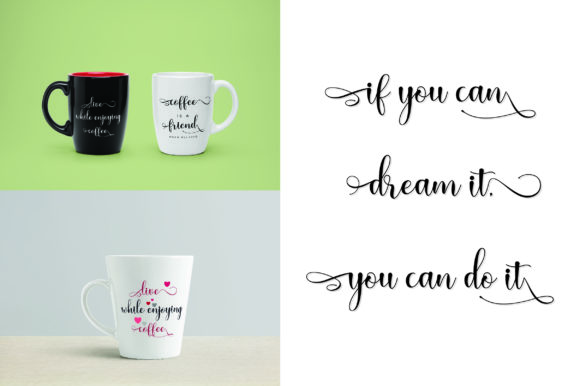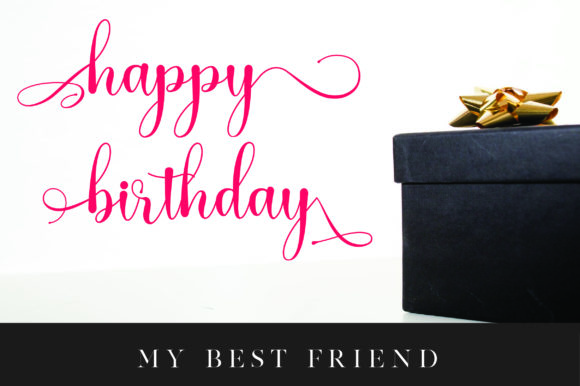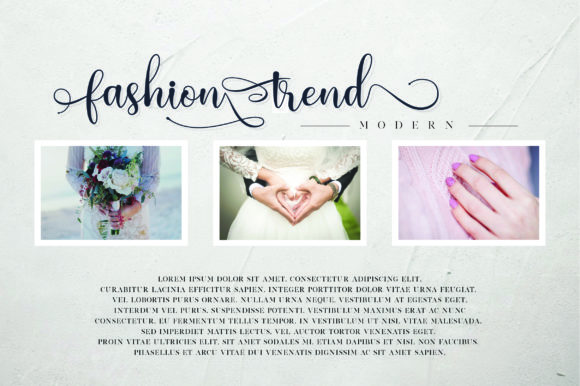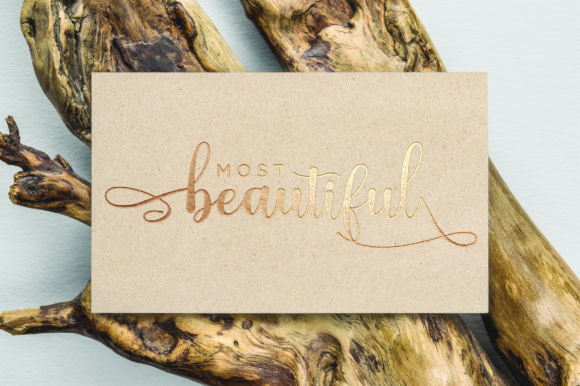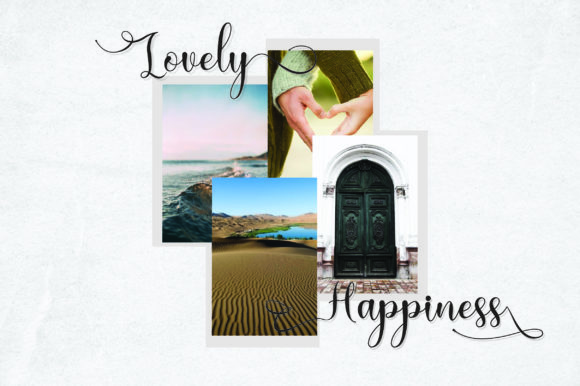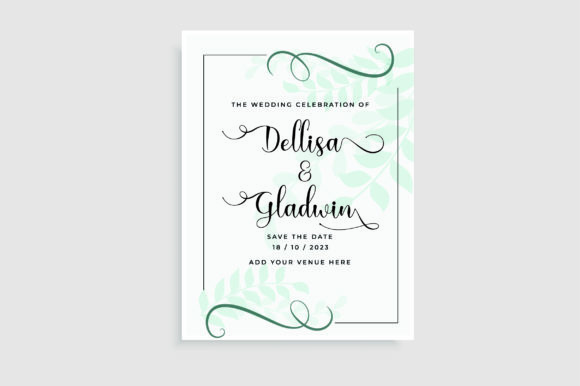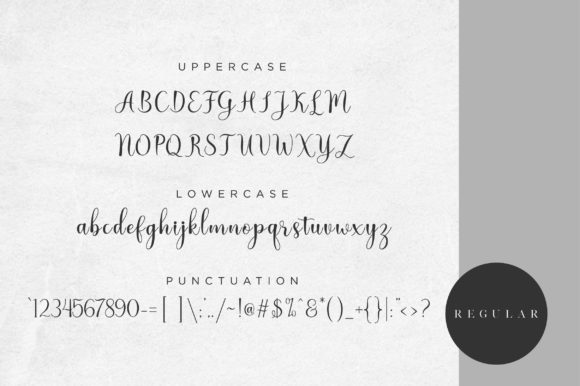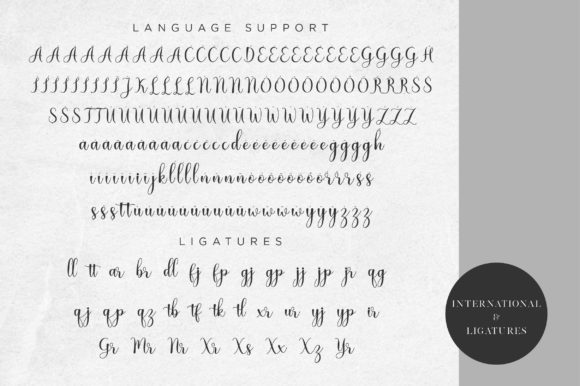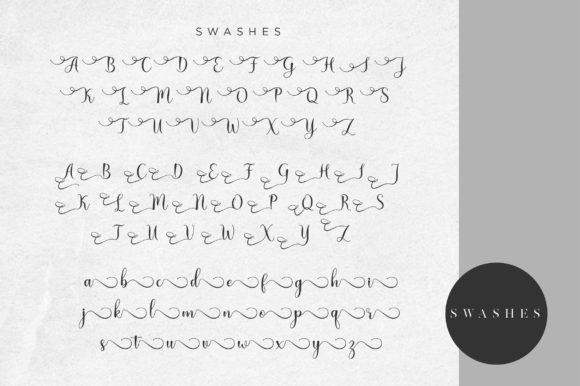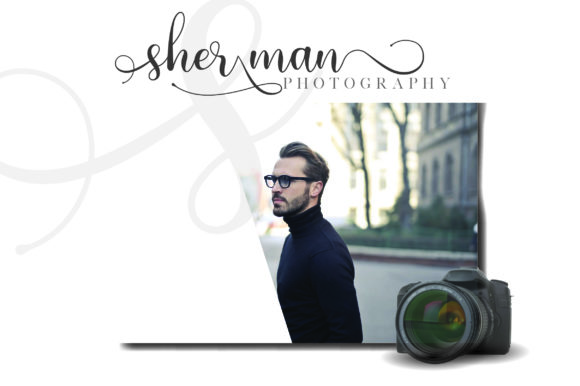
Nattalia Font
About Nattalia Font
Introducing The Nattalia, a stylish script font designed to add a touch of elegance and sophistication to your designs. This font is more than just a typeface; it’s a design asset crafted to bring a feminine and upscale quality, infusing your projects with a chic and stylish appearance.
The Nattalia’s stylish script embodies a feminine aesthetic, making it perfectly suited for designs that require a touch of grace and sophistication. Whether you’re working on logos, branding, invitations, or any project where an upscale and chic look is desired, The Nattalia delivers with its elegant script style.
The feminine style of The Nattalia lends a graceful and refined quality to your designs, establishing a visual identity that is both chic and memorable. Its versatility makes it suitable for a variety of applications, from branding and logos to invitations and editorial design.
In branding, The Nattalia establishes a chic and stylish visual identity that resonates with a feminine audience. For invitations and wedding-related designs, the font adds a touch of elegance to special occasions. Its application extends to editorial design, where The Nattalia enhances the overall aesthetic with its graceful script.
In summary, The Nattalia is more than just a font; it’s a design companion that brings a feminine and upscale style to your creative projects. Embrace its stylish script for logos, branding, invitations, and more, and let The Nattalia elevate your designs with a chic and sophisticated touch.